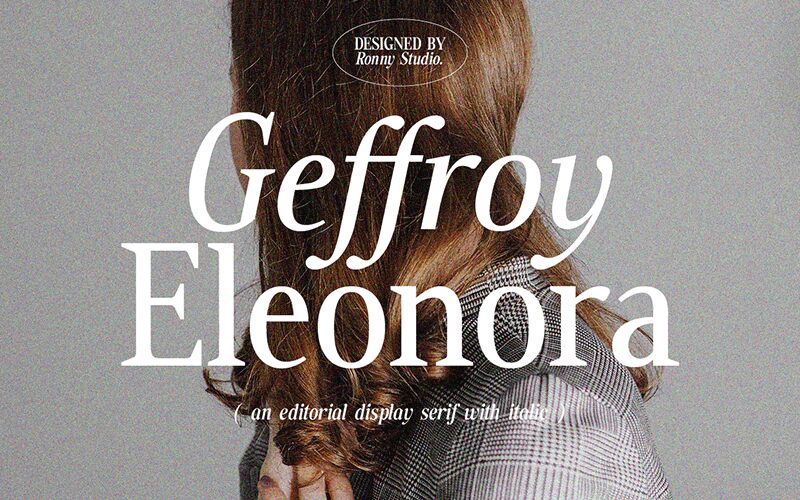
Geffroy Eleonora
The Geffroy Eleonora font, designed by Ronny Studio, is an elegant serif typeface with a semi-light weight and semi-condensed width. Its refined curves and clean lines make it perfect for creating sophisticated and timeless designs.
With its classic charm, Geffroy Eleonora is suitable for a wide range of projects, such as fashion magazines, luxury branding, wedding invitations, and high-end product packaging. This font effortlessly adds a touch of sophistication to any design, making it ideal for those seeking an elevated aesthetic.